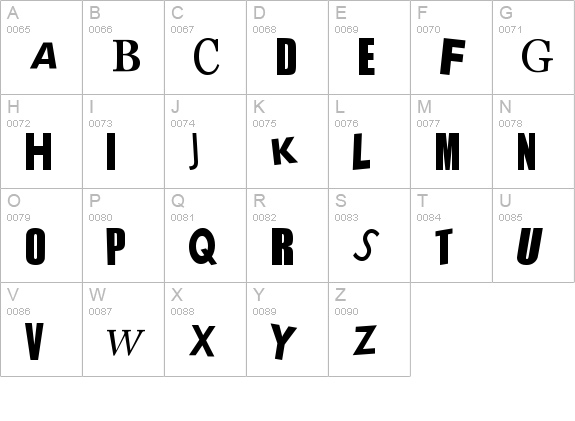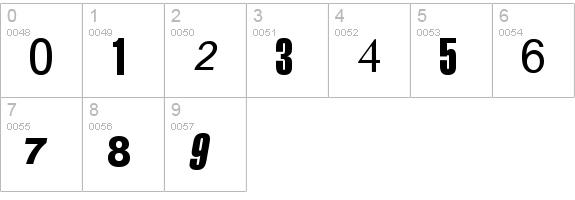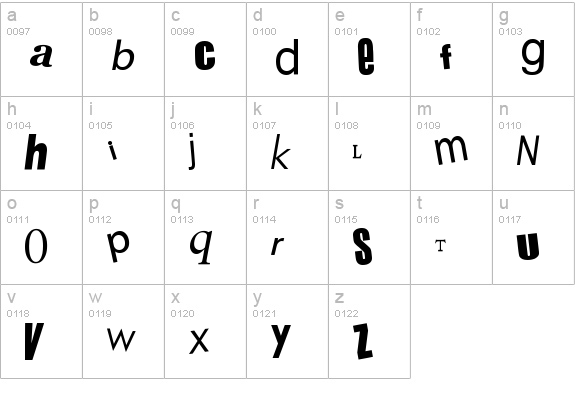
The Sex Pistols font is a rebellious and edgy typeface that captures the raw energy and attitude of the iconic punk rock band. With its bold and distressed letterforms, this font exudes a sense of defiance and nonconformity. Perfect for creating eye-catching graphics and designs that make a statement, the Sex Pistols font is a must-have for anyone looking to inject a dose of punk rock spirit into their projects. Best of all, the Sex Pistols font is available for free download at FontsMarket.com. So whether you're working on a poster, album cover, or any other design project that calls for a touch of punk rock flair, you can easily get your hands on this unique and impactful font without breaking the bank. Download the Sex Pistols font today and let your creativity run wild with its rebellious charm.